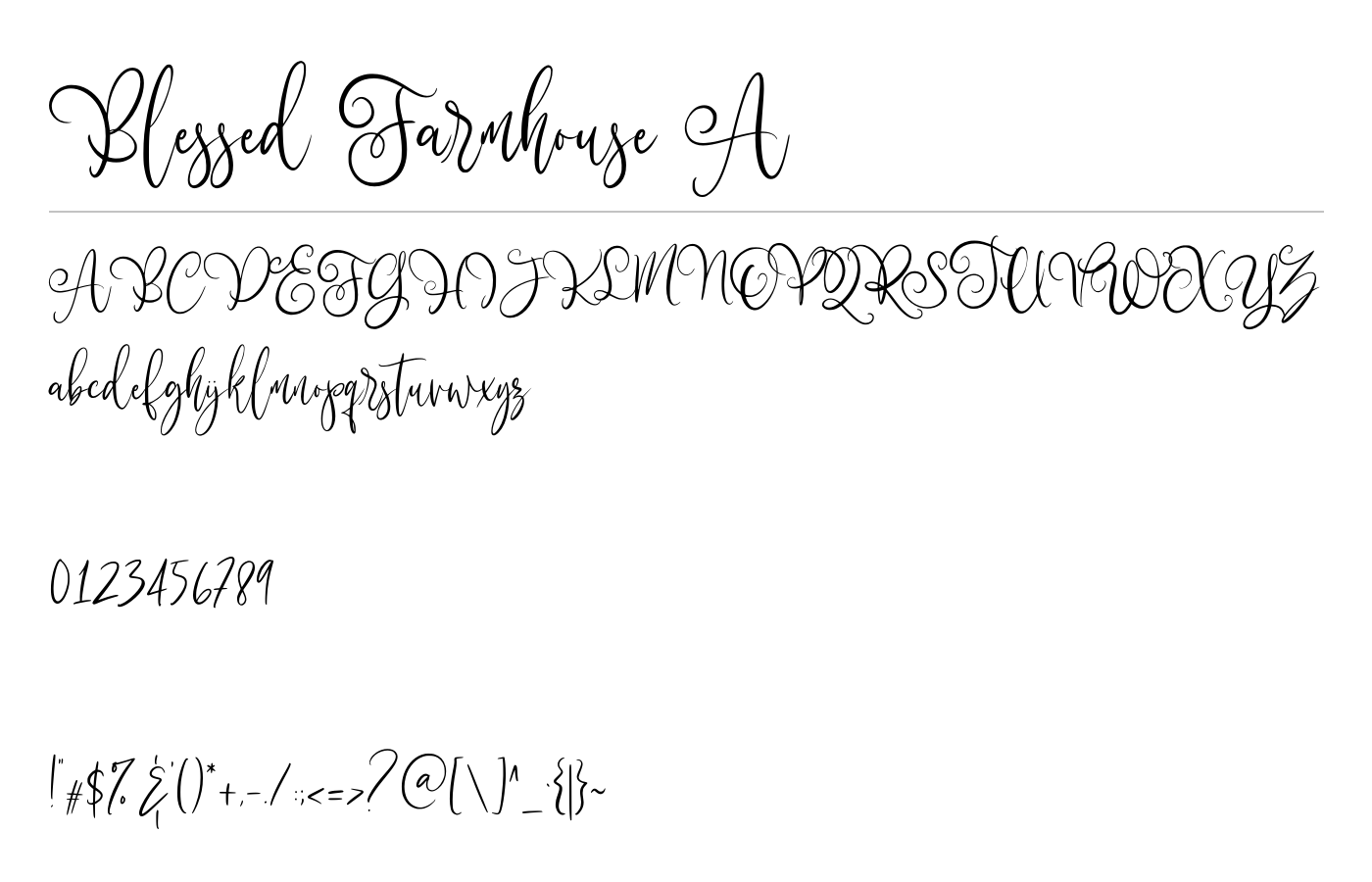
Blessed Farmhouse A is an elegant handwritten script font featuring delicate, flowing strokes with a charming farmhouse vibe. Its cursive uppercase letters are adorned with graceful flourishes, while the lowercase characters remain slender and approachable, making it ideal for romantic, rustic, or vintage-inspired designs. This font works beautifully for branding, invitations, and packaging where a personal, warm, and sophisticated touch is desired.
Blessed Farmhouse A Font
About Blessed Farmhouse A Font